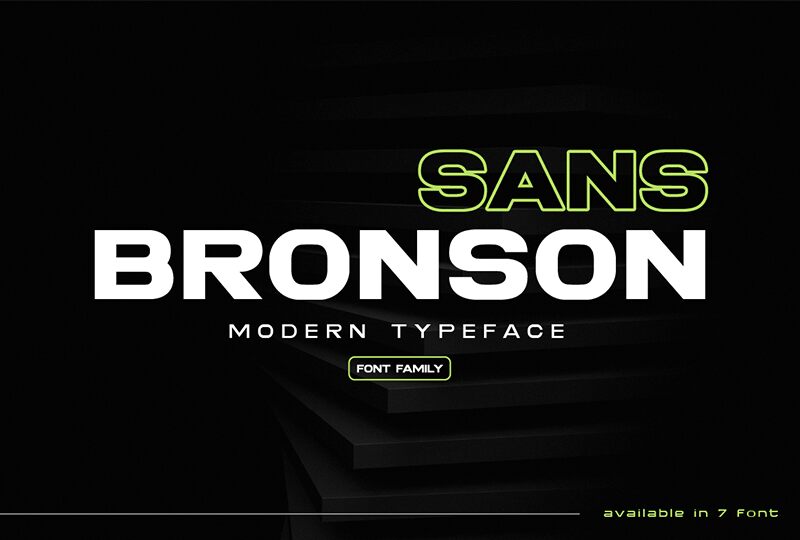
BRONSON Black
BRONSON Black, the latest addition to the BRONSON family, boasts an extra-bold weight and expanded width that makes it perfect for creating bold statements. Its sleek sans serif style is versatile and can be used in a variety of projects ranging from modern branding to editorial design. With its powerful presence, BRONSON Black is ideal for headlines, posters, and packaging that demand attention. Designed by Ronny Studio, this font exudes confidence and strength with its clean lines and bold curves. Give your designs a touch of authority with BRONSON Black – the ultimate font for making a statement.